For your content to make a positive impression on readers, whether that is web or print, you do need to have a title that is not only descriptive and attention grabbing but also designed clearly readable. Choosing that right font for that can be a difficult task. To help with your search for a clean and professional headline fonts we have twenty fresh free fonts you may consider using.All of the below fonts are free to use for both personal and commercial projects, yet please be sure that you have read license agreement.
Fresh and Free Professional Fonts for Headline
Lato
GardenC
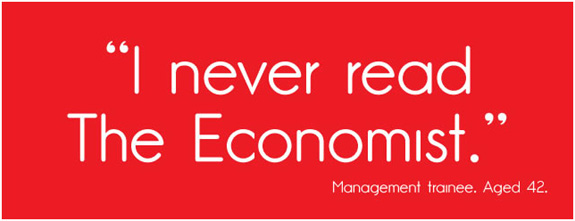
Infinity
Movavi Grotesque Black
JustVector Social Icons Font
Quattrocento
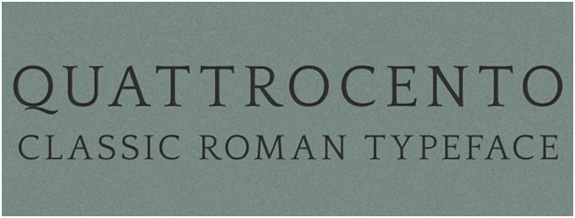
Dalle
Elega
Maven Pro
Cabin
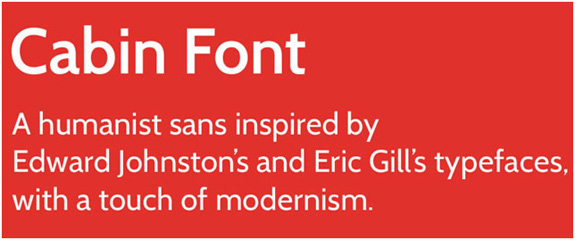
Decani
Fanwood
Linden Hill
Minaeff Ect
Cony
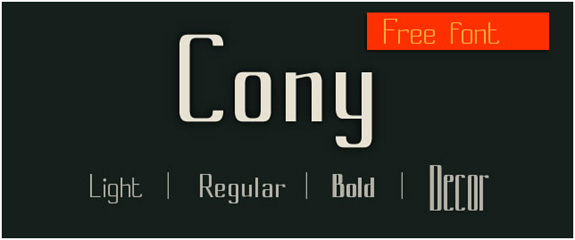
Terminal Dosis
Candal
Ubuntu Font Family
Matilde